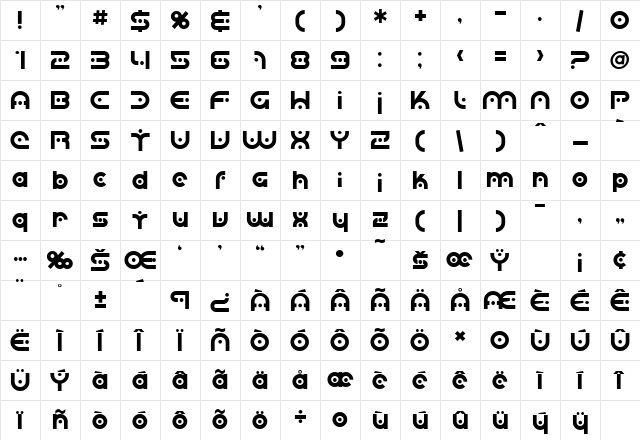
SF Planetary Orbiter Regular
SF Planetary Orbiter Family
Design Context for SF Planetary Orbiter
SF Planetary Orbiter is a composed and adaptable typeface that performs quietly and consistently across a wide range of design contexts.